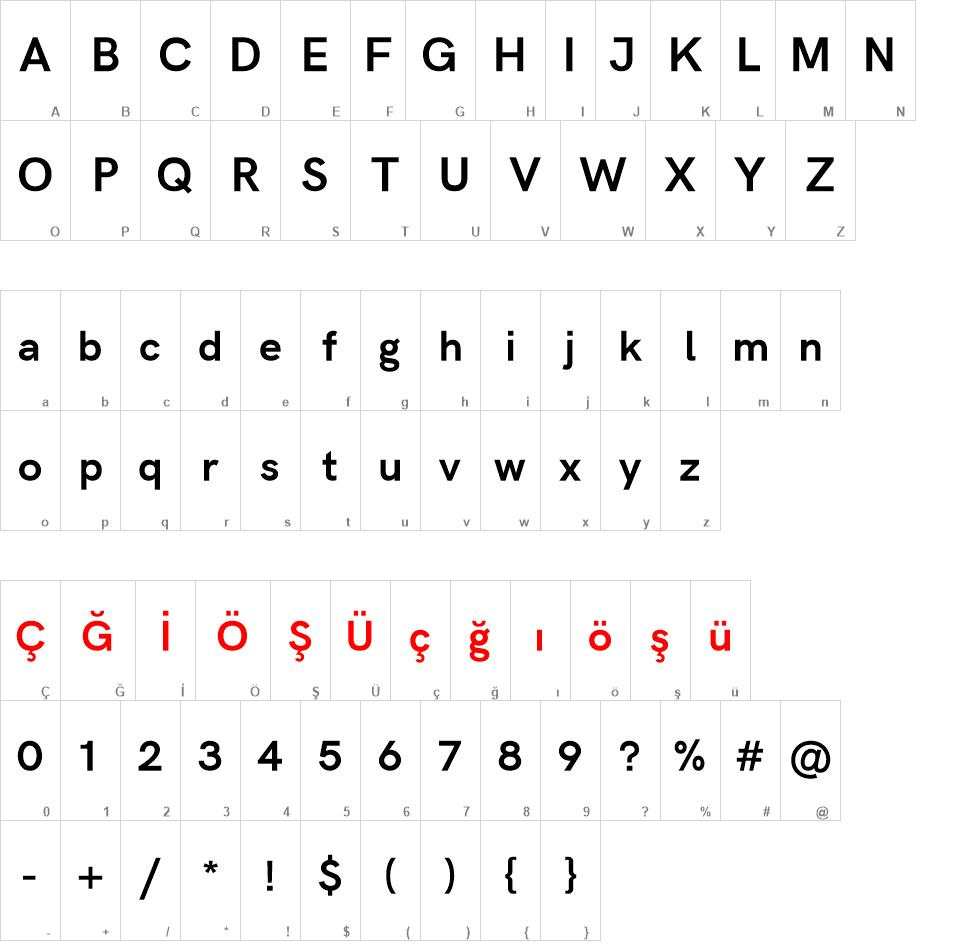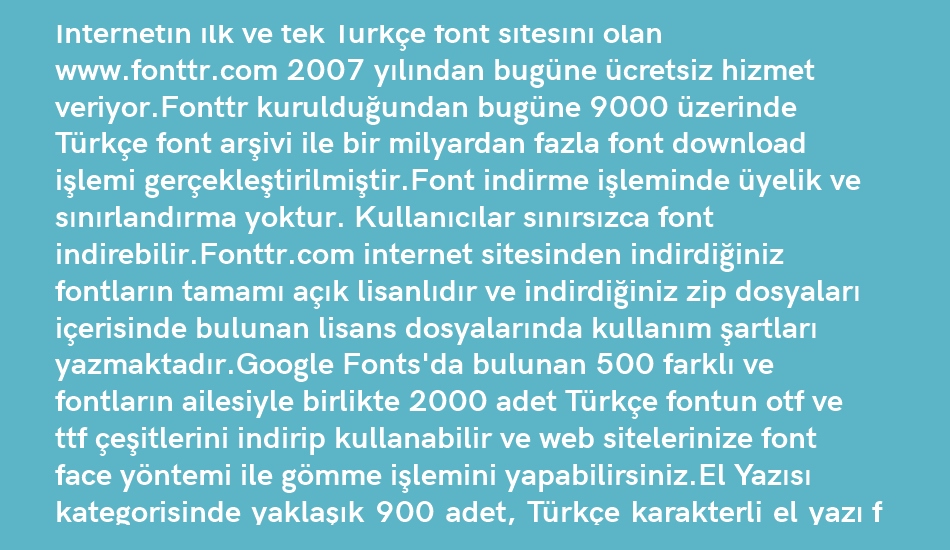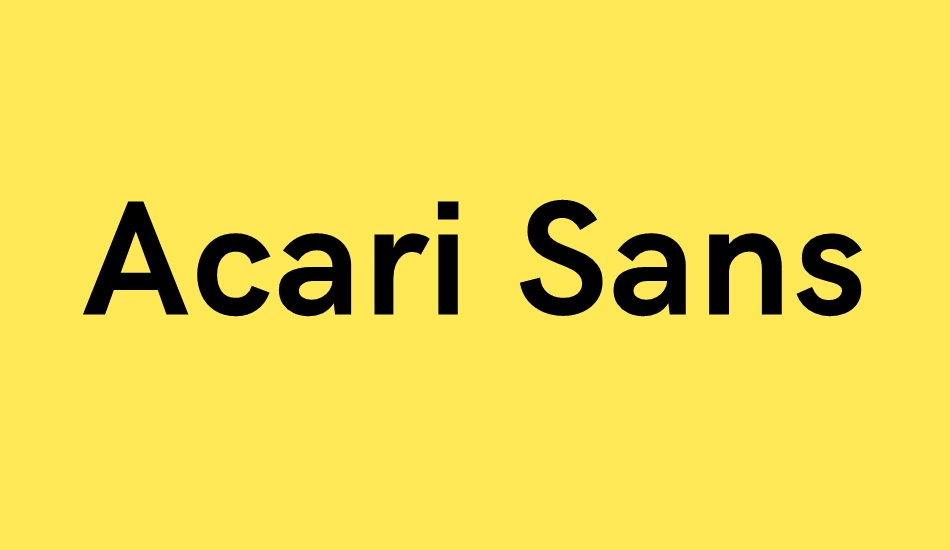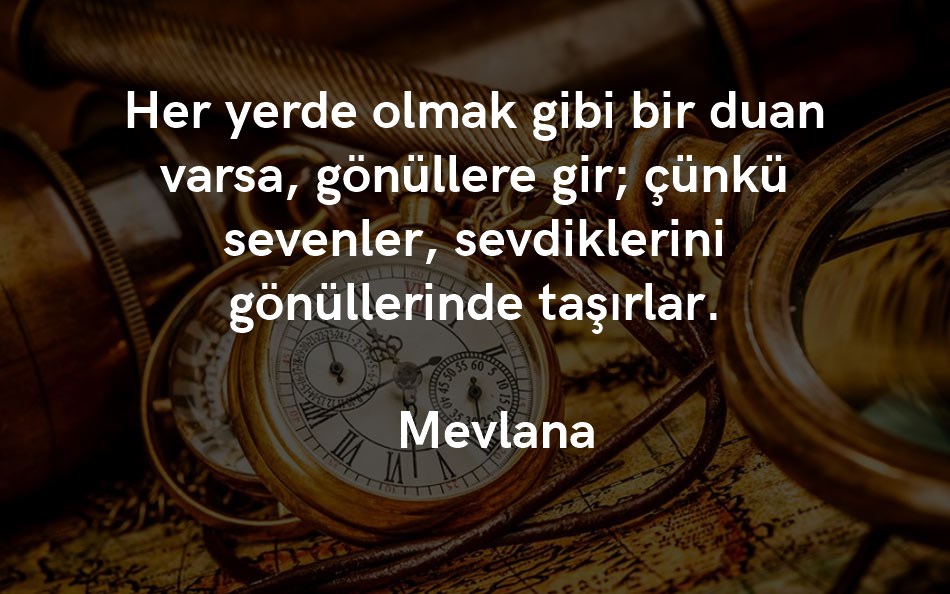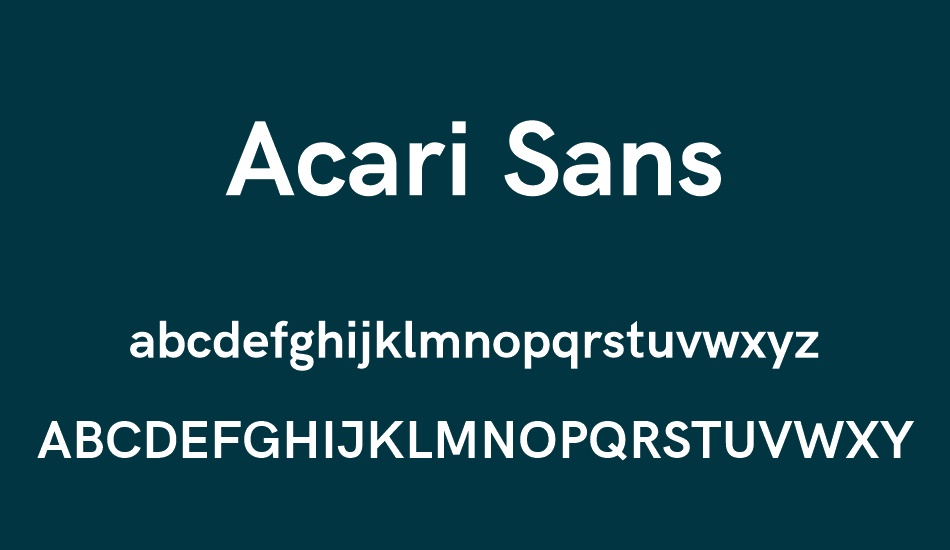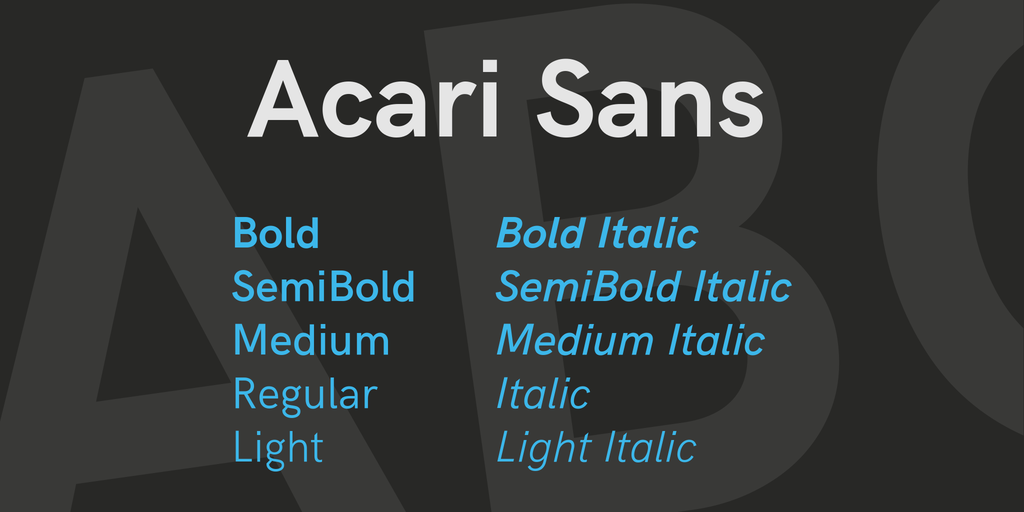
Acari Sans font
Acari Sans
Acari Sans (named after a fish native from Central and South America, also referred to as 'cascudo') is a sans-serif, grotesk font forked from HK Grotesk Cyrillic. This font was born after the upstream fonts lost Cyrillic support, so in April 2018 we decided to fork that font.
It is inspired by classic grotesques, and it has 5 weights with matching italics.
It also has modern Cyrillic as default instead of traditional one.